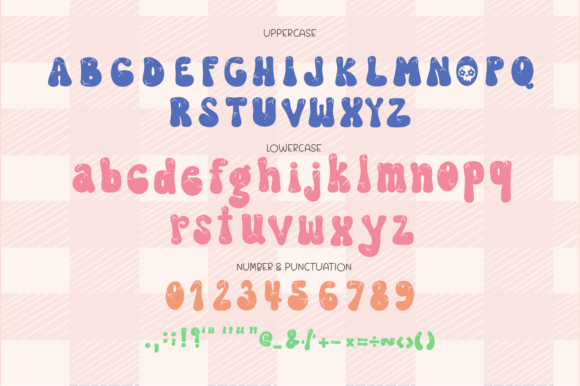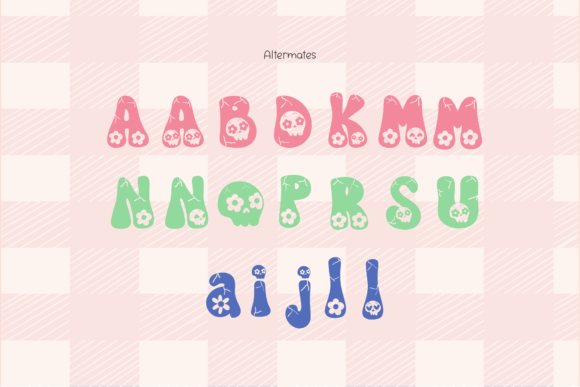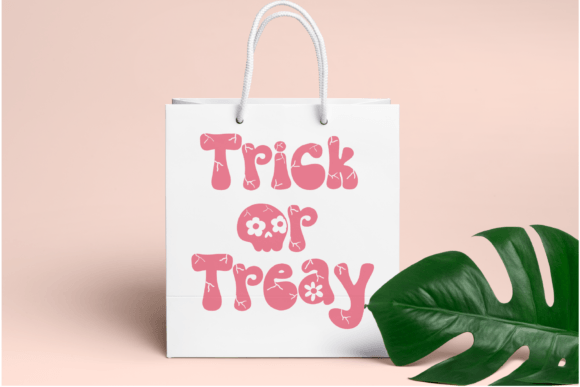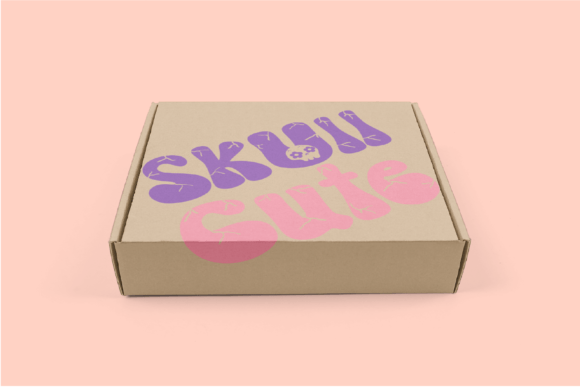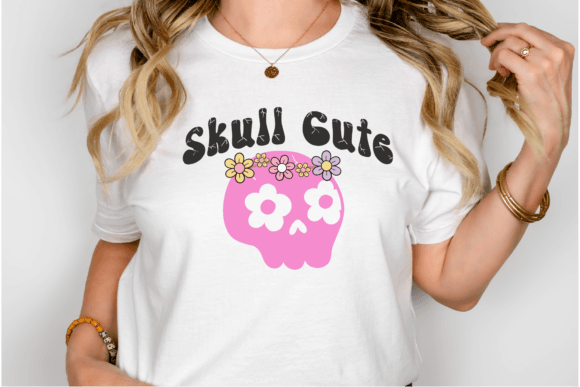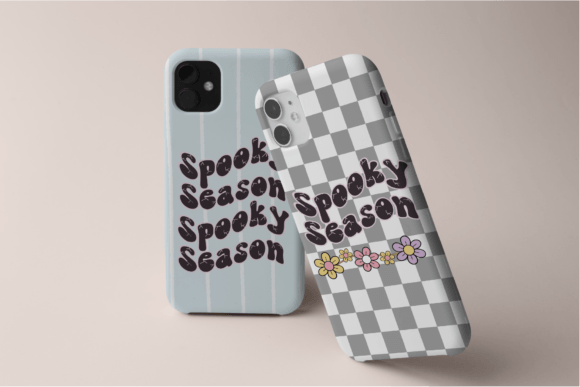
Unleash the Spirit of Halloween with the Delightful Halloween Skull Font
Halloween is just around the corner, and what better way to get into the spooky spirit than with a font that’s as cute as it is quirky? Look no further than the Halloween Skull Font, a display font that’s sure to add a joyful touch to your designs. In this article, we’ll dive into the world of this delightful font, exploring its features, uses, and benefits for designers and crafters alike.
A Font that Embodies the Halloween Spirit
The Halloween Skull Font is a one-of-a-kind display font that’s perfect for adding a touch of whimsy to your designs. Its unique blend of spooky and playful elements makes it an ideal choice for Halloween-themed projects, from party invitations to social media graphics. But what really sets this font apart is its ability to evoke a sense of joy and playfulness, making it perfect for designers and crafters who want to create eye-catching and engaging content.
Key Features of the Halloween Skull Font
- Cute and Quirky Design: The Halloween Skull Font boasts a delightful design that’s both spooky and adorable. Its quirky style is sure to capture the attention of your audience and leave a lasting impression.
- Display Font: As a display font, the Halloween Skull Font is perfect for headlines, titles, and other attention-grabbing elements. Its bold and eye-catching style makes it ideal for use in a variety of design projects.
So why should designers and crafters choose the Halloween Skull Font for their projects? Here are just a few benefits:
- Adds a Touch of Whimsy: The Halloween Skull Font is the perfect way to add a touch of whimsy and playfulness to your designs. Its unique style is sure to set your projects apart from the rest.
- Increases Engagement: The Halloween Skull Font is designed to grab attention and hold it. Its bold and eye-catching style makes it perfect for use in social media graphics, party invitations, and other projects where engagement is key.
- Versatile: The Halloween Skull Font is incredibly versatile, making it perfect for use in a wide range of design projects. From Halloween-themed party invitations to spooky social media graphics, this font is sure to become a go-to in your design arsenal.
Creative Ideas for Using the Halloween Skull Font
So what can you create with the Halloween Skull Font? Here are a few ideas to get you started:
- Halloween Party Invitations: Create eye-catching party invitations that are sure to get your guests in the mood for a spooktacular time.
- Spooky Social Media Graphics: Add a touch of whimsy to your social media graphics with the Halloween Skull Font. Perfect for Halloween-themed posts, promotions, and more.
- Crafting Projects: Use the Halloween Skull Font to add a personal touch to your crafting projects, from Halloween-themed cards to spooky scrapbooking pages.
| Font Name | Halloween Skull Font |
| Author | Honiiemoon |